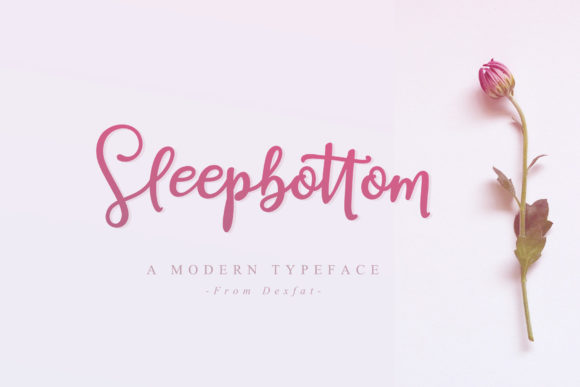
Introducing Sleepbottom Font – A Handwritten Masterpiece for the Lovebirds!
Open the door to a world of enchanting typography with Sleepbottom Font, a script typeface that captures the essence of love, romance, and creativity. This exquisite handwritten font is the brainchild of WDfont Creative, renowned for their exceptional artistry in the realm of digital lettering.
At first glance, Sleepbottom Font mesmerizes with its charming and romantic demeanor. Its graceful strokes and delicate swashes evoke the handwritten notes of lovers, filled with whispered secrets and heartfelt emotions. This font is not just a collection of letters; it's an invitation to express your love and creativity in a truly captivating way.
Whether you're a designer crafting wedding invitations, a blogger pouring your heart into heartfelt posts, or an artist seeking inspiration, Sleepbottom Font will elevate your creations to new heights. Its versatility knows no bounds, making it the perfect choice for a wide range of projects, from whimsical greeting cards to enchanting logos.
With Sleepbottom Font, you'll discover a symphony of emotions waiting to be unleashed. Prepare to be captivated by its graceful curves, swept away by its romantic charm, and inspired by its endless possibilities. Let this font be your muse, transforming your creative visions into unforgettable experiences.
Indulge in the beauty of Sleepbottom Font today, and let its enchanting essence ignite your imagination!